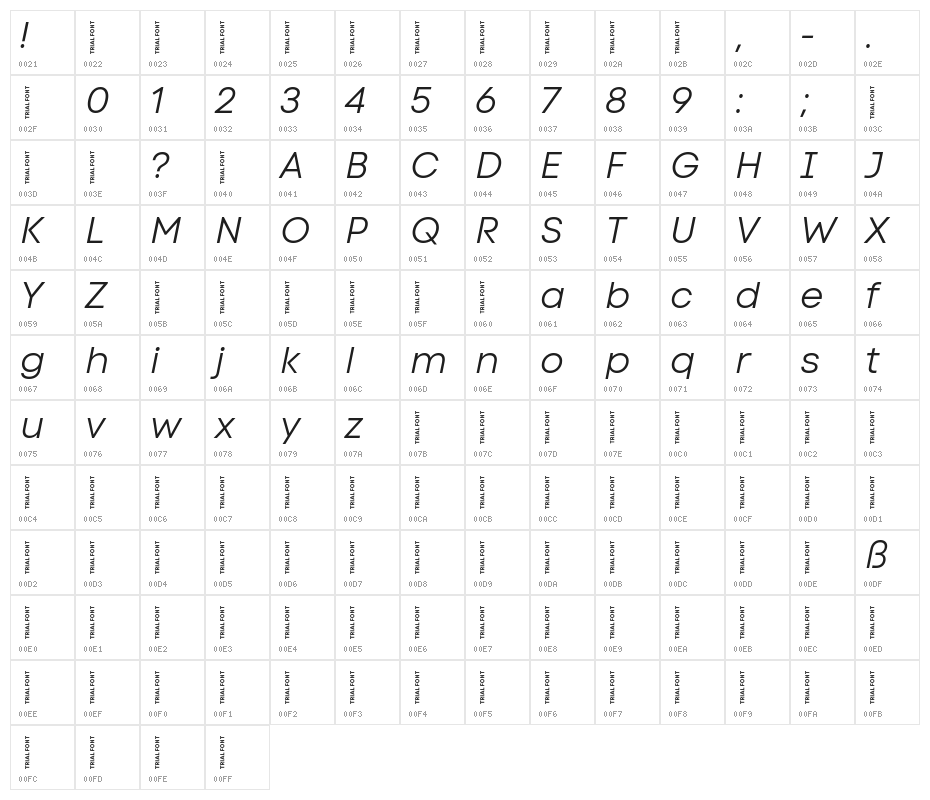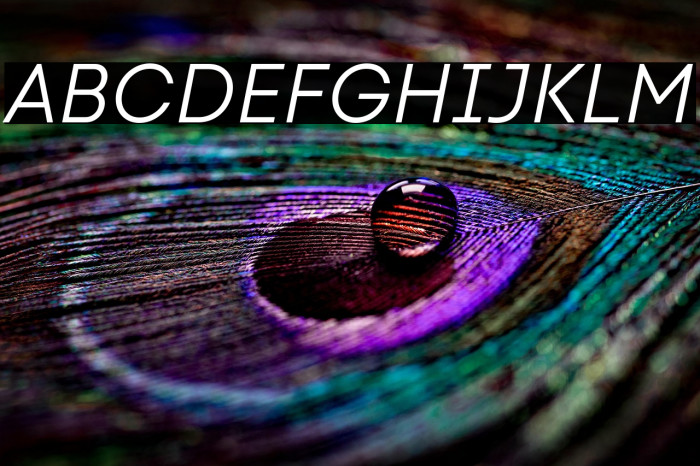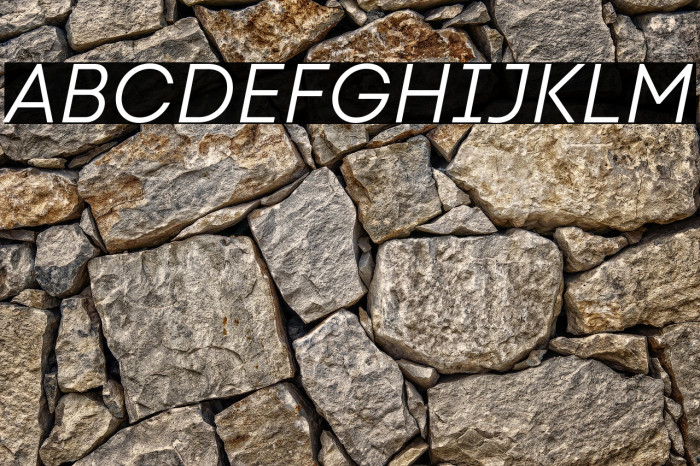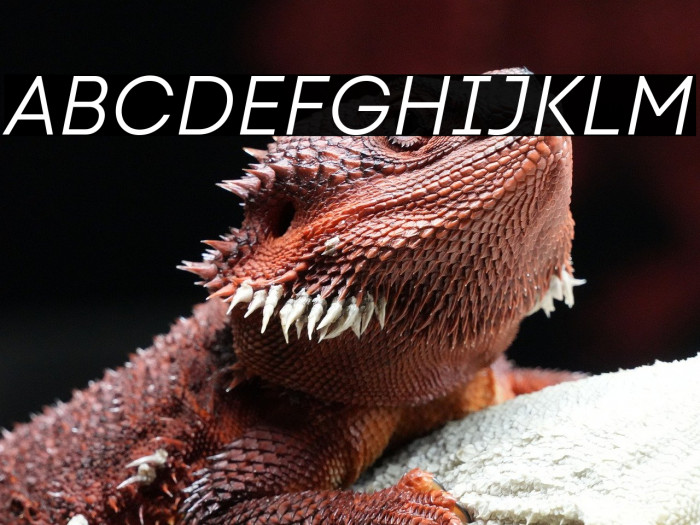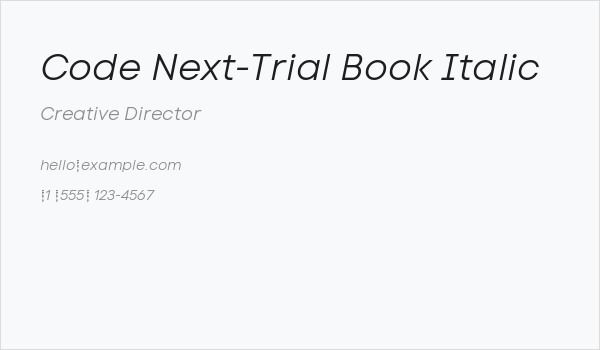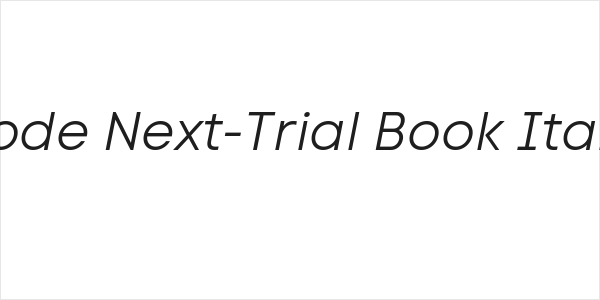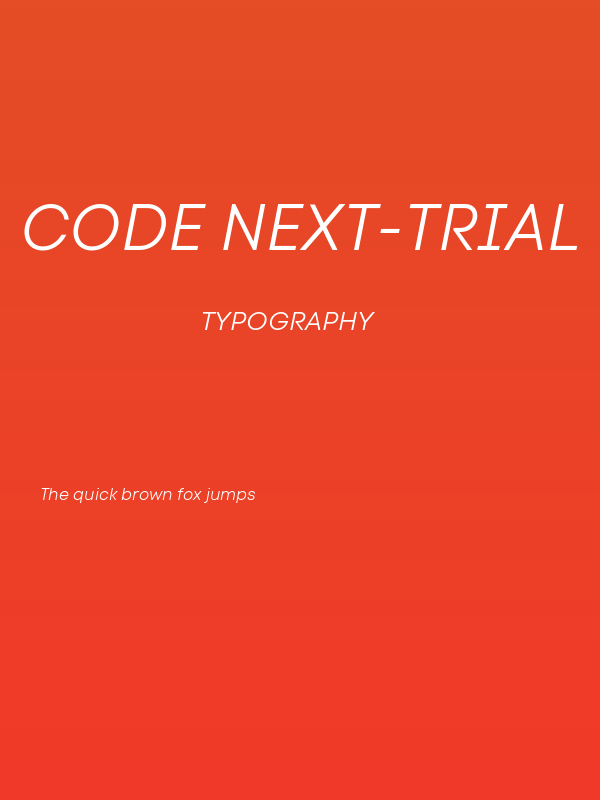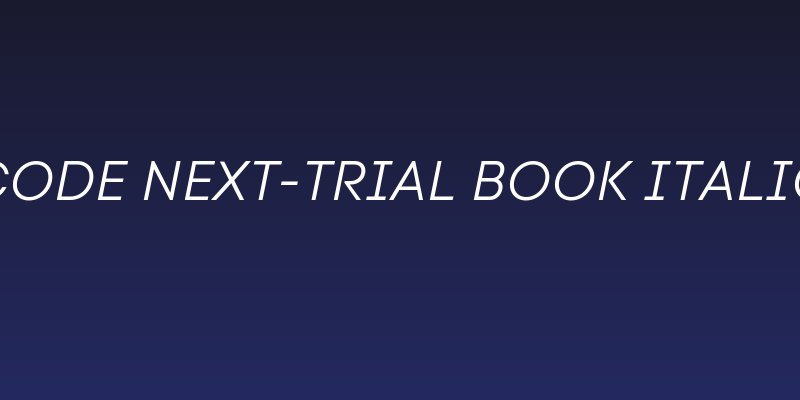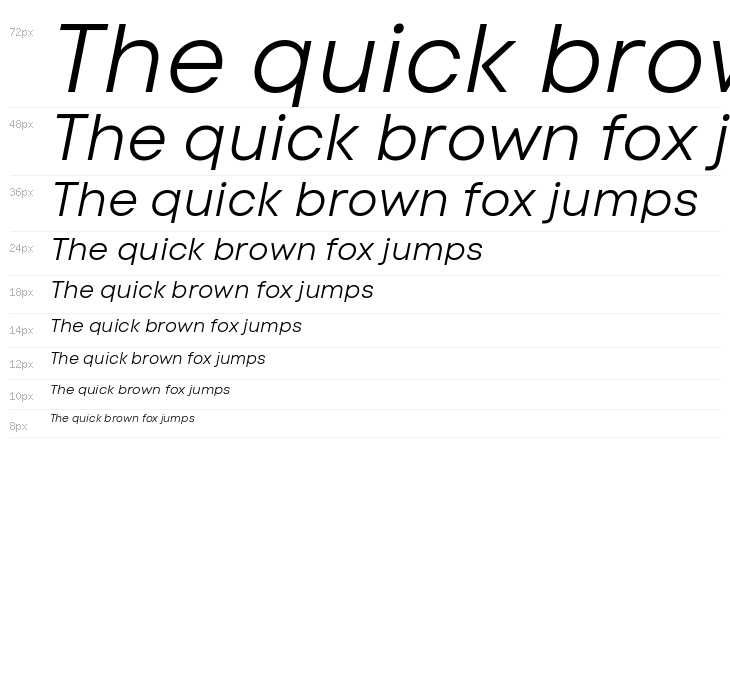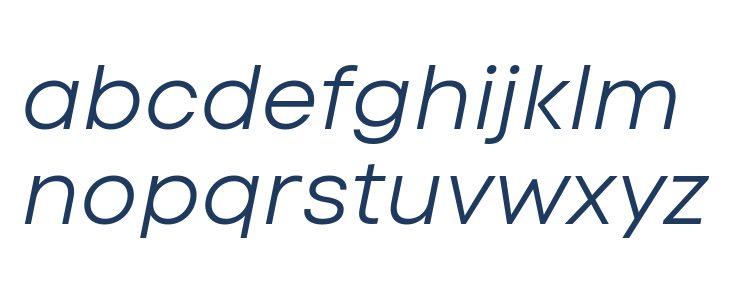
Code Next-Trial Book Italic Font
Code Next-Trial Book Italic Description
This font features a sleek and modern design with clean, smooth lines and a slight italic slant, giving it a dynamic and contemporary feel. The characters are evenly spaced, contributing to a balanced and harmonious appearance. The uppercase letters are bold and assertive, while the lowercase letters maintain a consistent flow, enhancing readability. The numerals are clear and distinct, making them suitable for various applications. Special characters are well-integrated, maintaining the overall aesthetic of the font. The design is versatile, suitable for both digital and print media, and can be used in a variety of contexts.